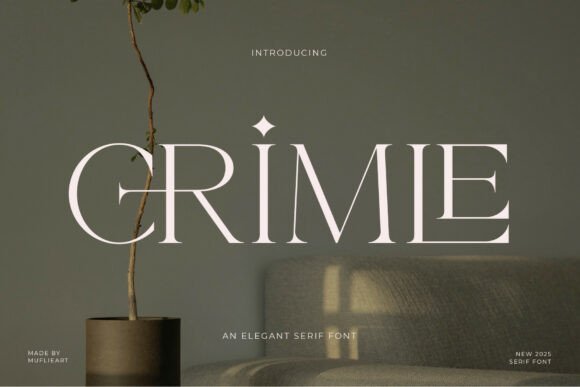
Redefining Luxury with Every Word
Imagine you’re sipping a glass of fine wine at an upscale boutique, surrounded by opulent designs that speak volumes about style and sophistication. The moment you lay eyes on the elegant typography, you know you’re in the presence of something extraordinary. That’s what happens when you pair your brand with the Crimle Font, a masterfully crafted serif typeface that exudes high-end luxury and refined elegance.
Designed to make a statement, Crimle Font is a game-changer for designers seeking to elevate their visual identity. With its razor-thin hairlines and bold, authoritative stems, this typeface is perfect for creating a sense of unyielding professional power and polished artisanal beauty. Whether you’re designing for a luxury lifestyle magazine, high-end boutique branding, or avant-garde cosmetic packaging, Crimle Font is sure to leave a lasting impression.
Crimle Font Key Features
- Unique Characteristics: Crimle Font features a unique blend of modern and vintage elements, making it ideal for designs that require a touch of sophistication and elegance.
Crimle Font Review
Overall, I think Crimle Font is a great addition to any designer’s toolkit. Here are some of the things that stand out:
- ✨ The font is highly customizable, with a wide range of weights and styles to choose from. This makes it perfect for designers who like to experiment with different typography.
- ✨ The font is also incredibly versatile, and works well for both digital and print applications.
- ✨ The Crimle Font has a beautiful, hand-drawn feel that adds a touch of elegance to any design.
However, there are a few limitations that designers should be aware of:
- ⚠️ The font may not be suitable for very small text sizes, as the details can get lost.
- ⚠️ The font may also be a bit too ornate for some designs, so it’s best to use it sparingly.
Overall, I think Crimle Font is a great choice for designers who are looking for a unique and customizable font. With a little bit of creativity, it can add a lot of visual interest to any design. I would definitely recommend it to anyone who is looking for a high-quality font that stands out from the crowd.
Use Crimle Font for creative and artistic projects, such as invitations, posters, and social media graphics.
Combine Crimle Font with other creative elements, such as graphics and images, to add visual interest to your design.